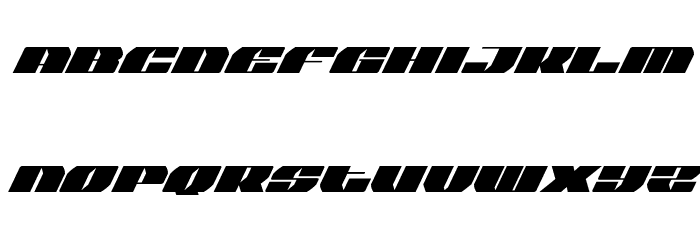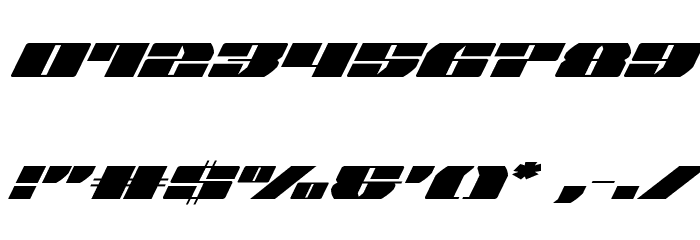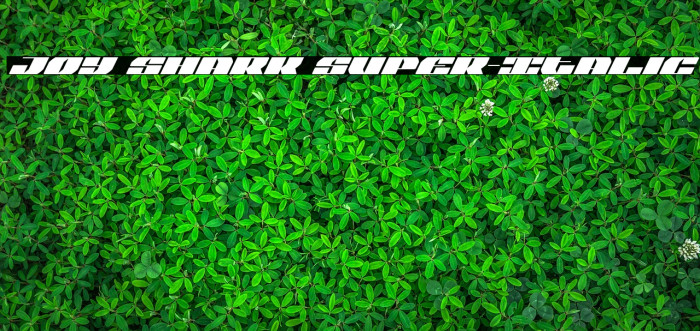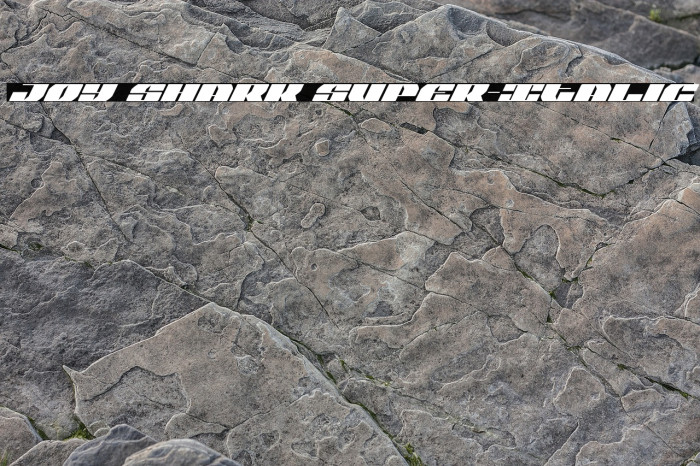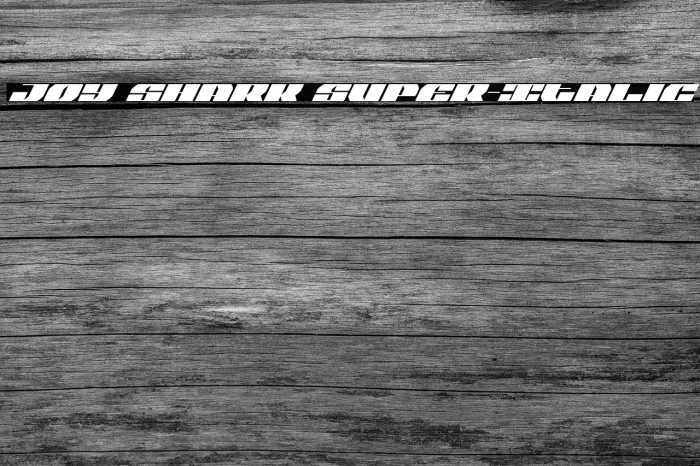
Joy Shark Super-Italic Font
This font features a bold and dynamic style with a strong italic slant, giving it a sense of movement and energy. The characters are wide and blocky, with sharp angles and a futuristic appearance. The uppercase and lowercase letters maintain a consistent height, enhancing readability while retaining a unique, edgy look. The numbers and special characters follow the same design principles, ensuring uniformity across all glyphs. This font's boldness and distinct style make it suitable for attention-grabbing designs.
A bold, italic, and futuristic font with wide, angular characters.
- Proposed Projects: Ideal for sports branding, video game titles, posters, and dynamic logos.
- Width: Expanded